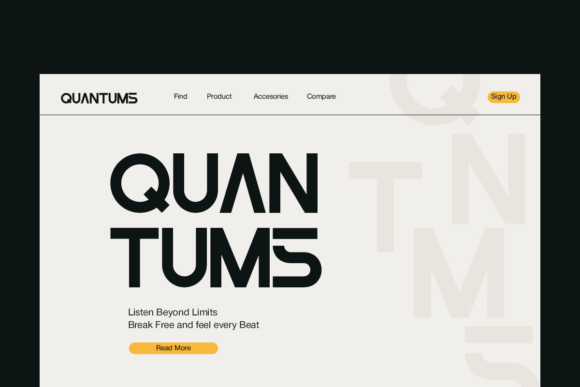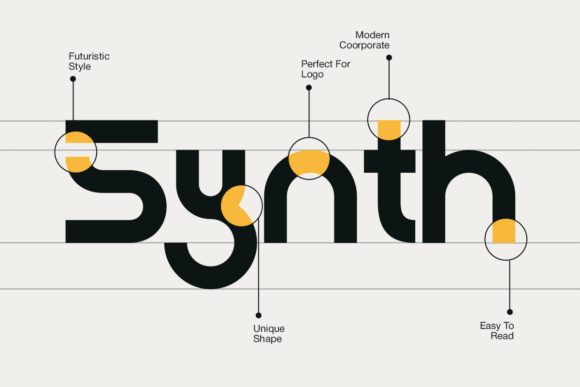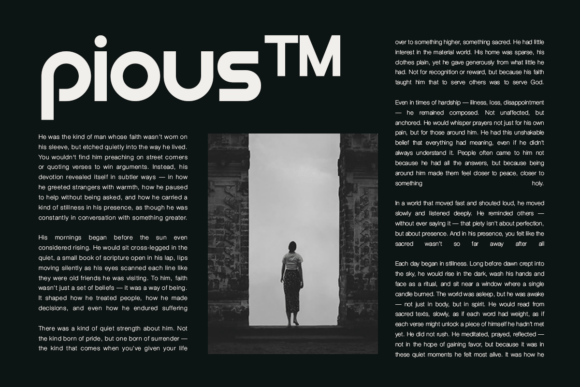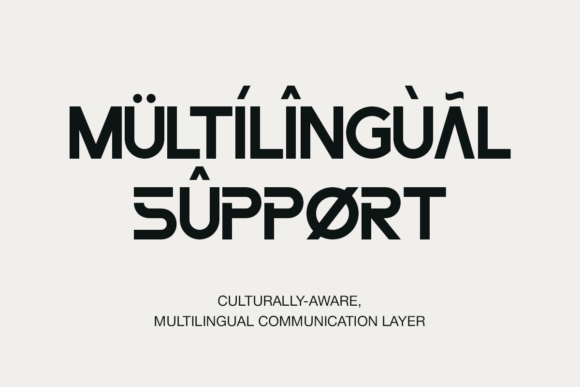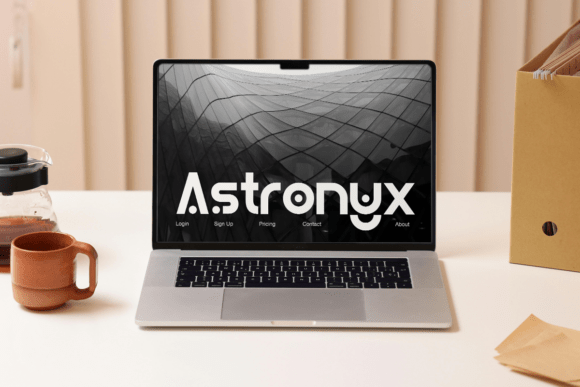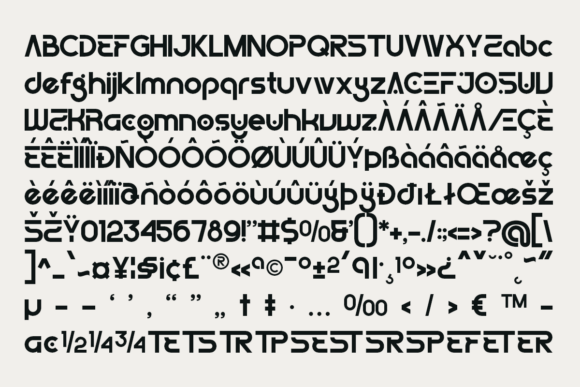
Introducing Gegola Font: The Bold Geometric Sans-Serif for Modern Designs
In the world of typography, fonts play a crucial role in shaping the identity of a brand, product, or editorial content. With the ever-evolving landscape of design, it’s essential to have a typeface that not only stands out but also communicates the message effectively. This is where Gegola Font comes into play – a bold geometric sans-serif typeface that embodies a modern, futuristic edge.
Design and Characteristics
Gegola is designed to command attention while maintaining legibility, making it an ideal choice for technology brands, fintech products, editorial layouts, and marketing strategies. Its clean, modular letterforms provide a strong visual impact, whether used in logos, headlines, or digital interfaces. The font’s geometric structure ensures a sense of stability and precision, which is particularly beneficial for brands aiming to convey innovation and reliability.
Multilingual Support and Flexibility
One of the standout features of Gegola Font is its multilingual support. In today’s globalized market, having a typeface that can cater to diverse linguistic needs is invaluable. Gegola’s extensive language support ensures that your brand can communicate effectively across different regions and cultures, making it a versatile choice for international businesses.
Creative and Corporate Applications
Gegola’s well-crafted alternates and consistent proportions offer flexibility for both creative and corporate projects. Designers can experiment with various styles to match the tone and personality of their projects, whether it’s a bold statement piece or a more subtle, professional look. This adaptability makes Gegola suitable for a wide range of applications, from digital marketing campaigns to editorial publications and product branding.
Why Choose Gegola Font?
- Modern Aesthetic: Gegola’s geometric sans-serif design gives it a contemporary look that’s perfect for brands looking to appear modern and forward-thinking.
- Legibility: Despite its bold nature, Gegola maintains high legibility, ensuring that messages are conveyed clearly and effectively.
- Multilingual Support: Reach a global audience with Gegola’s extensive language support.
- Flexibility: Use Gegola in various contexts, from logos and headlines to digital interfaces, thanks to its versatile design and alternates.
- Attention-Grabbing: The bold nature of Gegola ensures it stands out, making it ideal for headlines, titles, and any content that needs to capture attention quickly.
Using Gegola in Design Projects
Gegola Font is a powerful tool for designers and brands aiming to make a statement with their typography. Its bold geometric design, combined with multilingual support and flexibility, makes it an excellent choice for a wide range of projects. Whether you’re working on a technology brand, fintech product, editorial layout, or marketing strategy, Gegola offers the perfect blend of modernity, legibility, and impact. Embrace Gegola Font in your designs to elevate your brand’s visual identity and communicate your message with clarity and style.